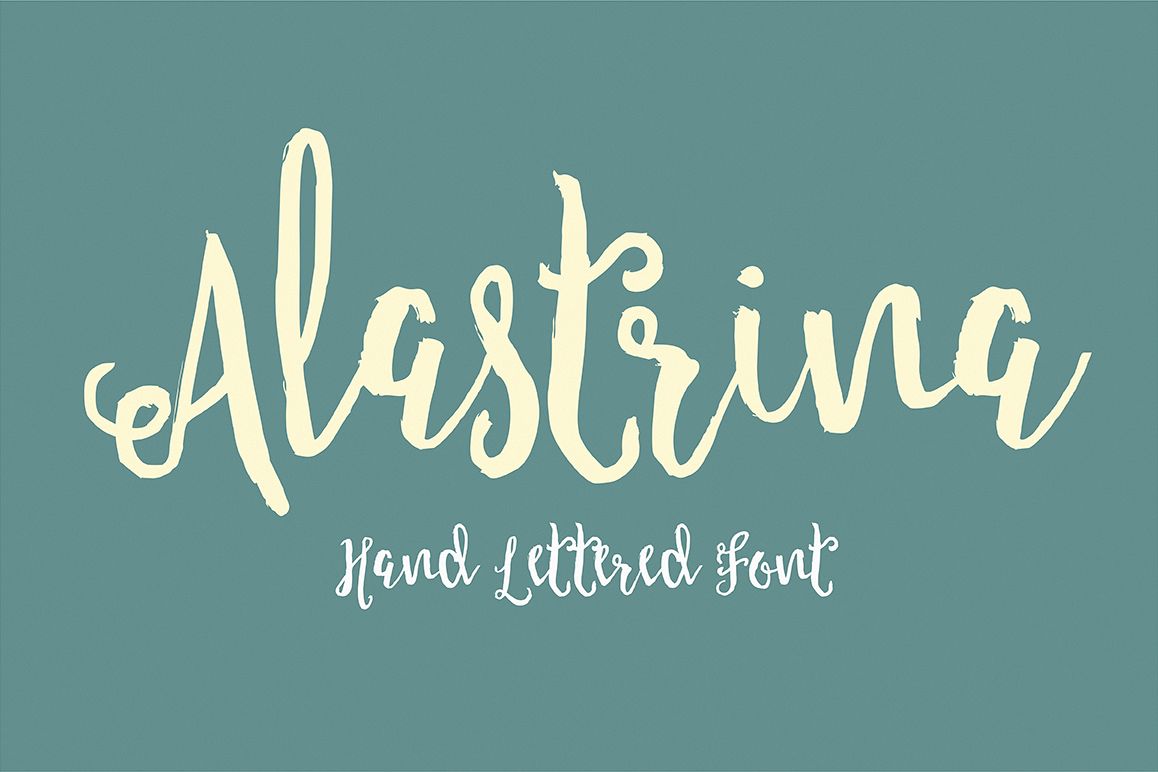
Alastrina Typeface
Alastrina Typefaces is a modern calligraphy brush typefaces with a dancing baseline. looks lovely on Posters, Logos, Print, Quotes, Headers, Clothing, etc Features: Uppercase -Lowercase -Numerals -Basic punctuations Available in .OTF and .TTF formats. Thanks!!!